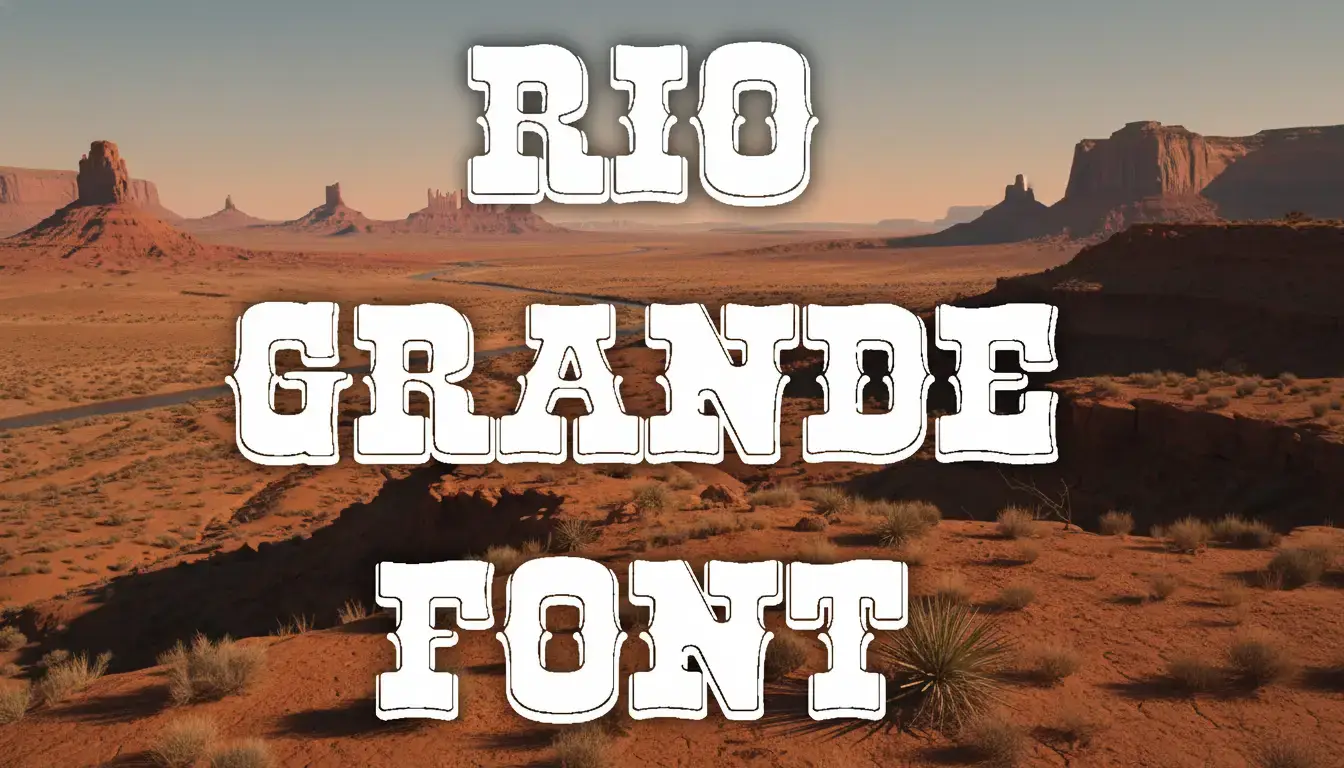
Rio Grande Font
Rio Grande
Rio Grande is a Western font. It has the bold, wood-type look of Wild West wanted posters and saloon signs. It's a free download, and you can try it with your own text in the preview above first.
What You Can Type With Rio Grande
Rio Grande covers the full alphabet in upper and lowercase, plus all ten numbers, so you can set names, dates and prices without switching fonts. Everyday marks like &, !, ? and @ are there too. There are no accented letters like é or ñ, so it's best kept to English text.
Where Rio Grande Works Best
Think of Rio Grande for rodeo posters, saloon signs and country music flyers. Try it in brown, rust or cream on a paper texture for the full old-west look.
Does Rio Grande support accented letters?
No. Rio Grande has no accented letters such as é, ñ or ü, so it's best for English text.
What fonts pair well with Rio Grande?
A sturdy slab serif or a simple serif works well for the smaller text.